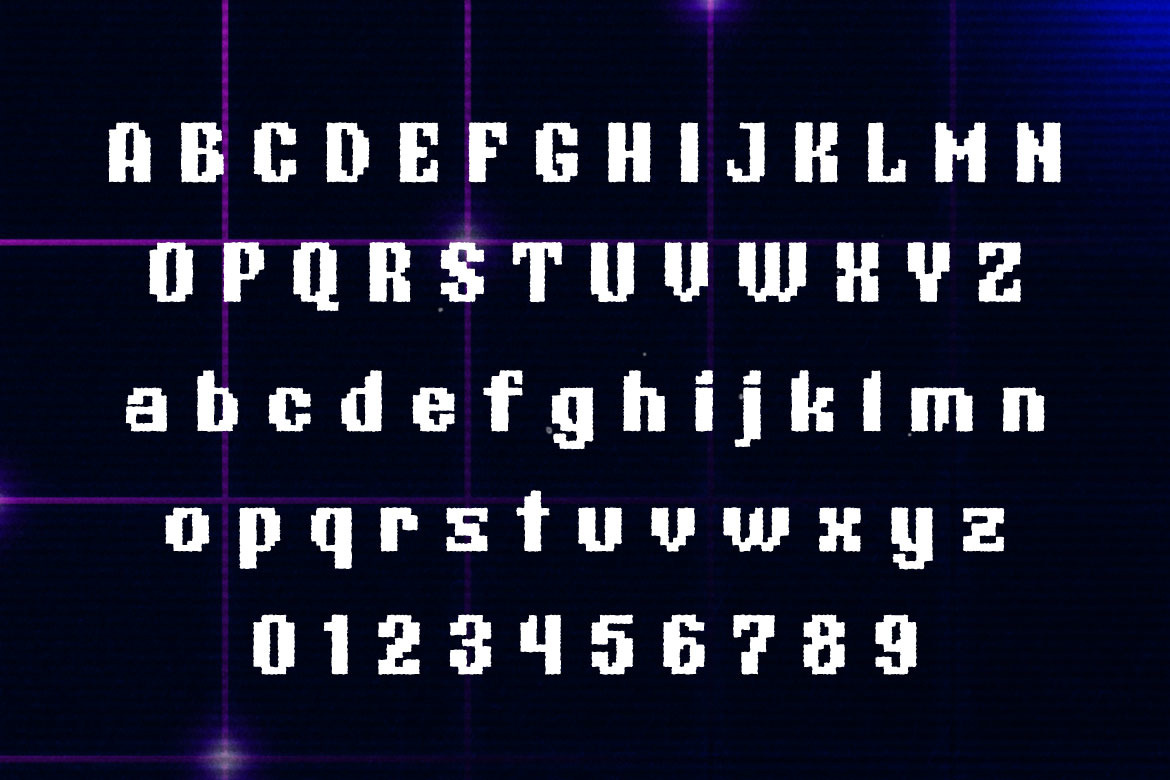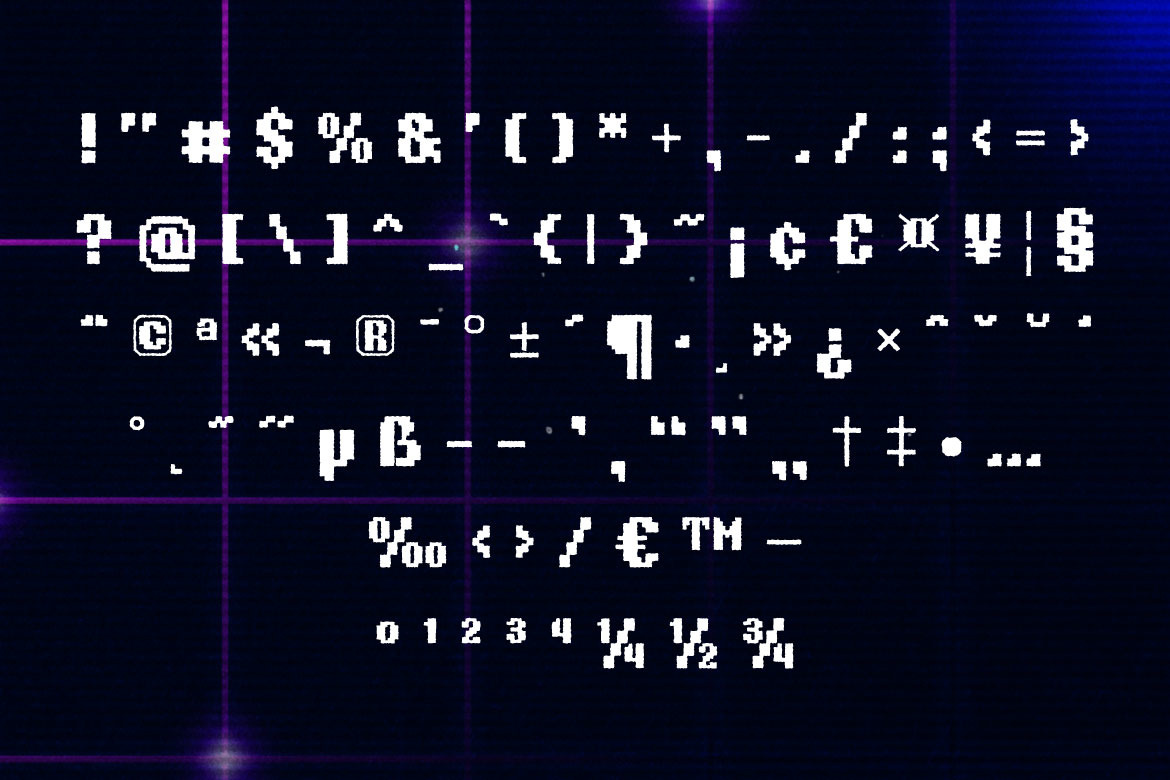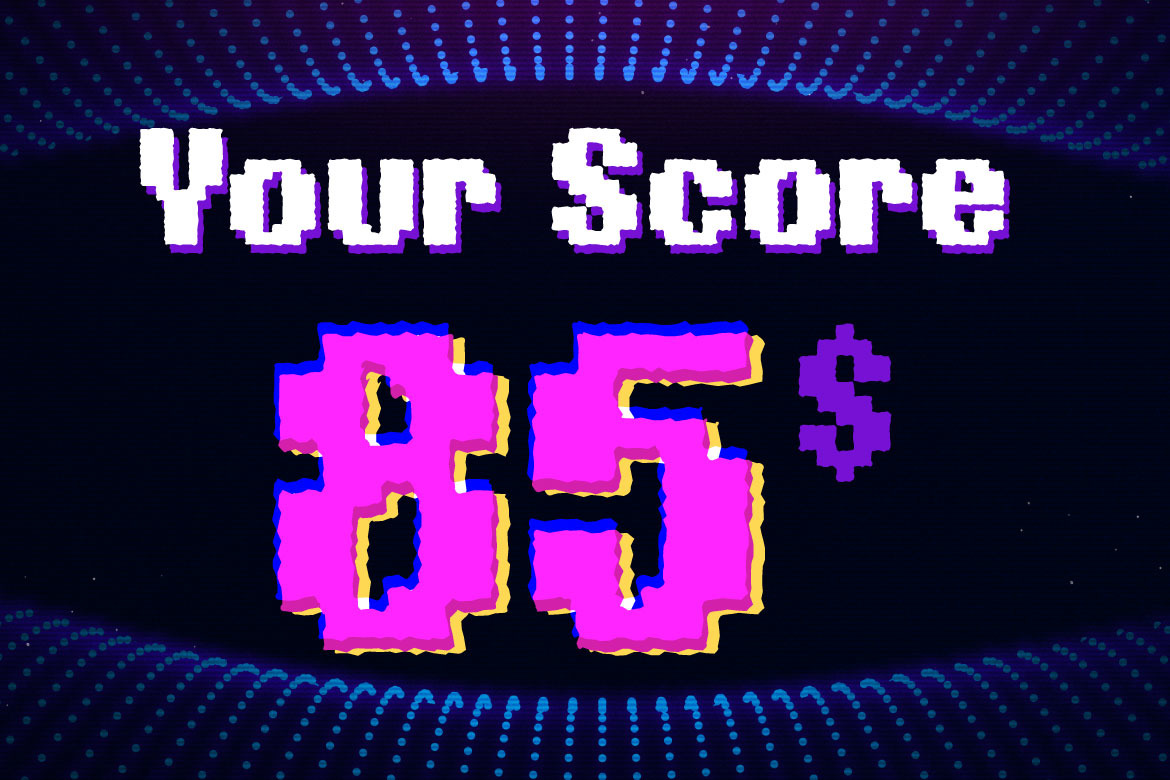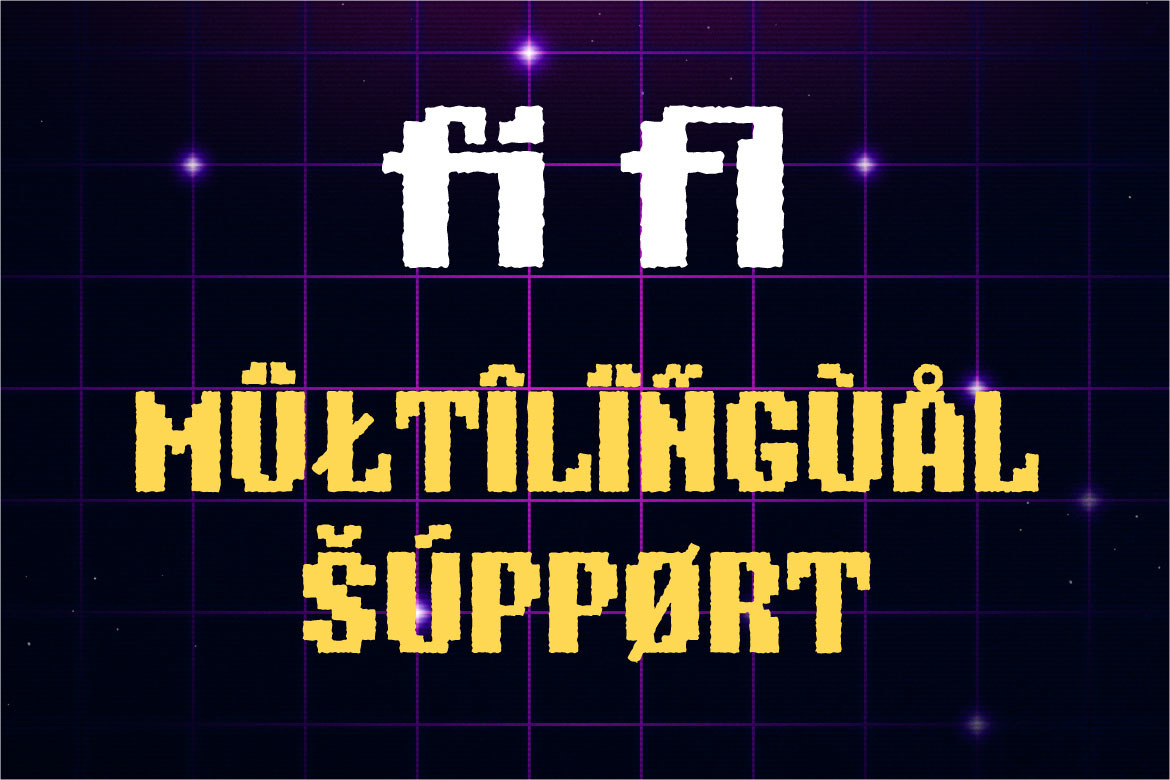
Expire Font
Expire is a pixel font. This font was inspired by and for gaming font needs in particular.
But don't worry, you can use it for your other design needs. So, enjoy this cool pixel font!.
FEATURES:
- STANDARD CHARACTER SET
- OPEN TYPE FEATURES:
-Standard Ligatures
-Fractions
- Superscript
- Multilingual Support.